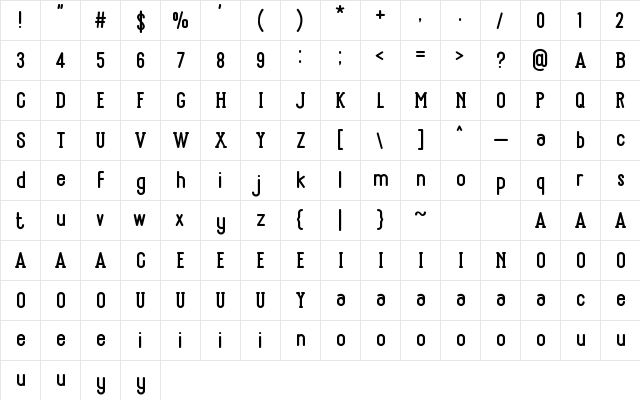
Bandonde Regular
Design Context for Bandonde Typeface
Bandonde offers clean, dependable letterforms without strong stylistic allegiance, making it a practical choice for designers who need flexibility.
Pro Tip: Pair Bandonde with a font of contrasting weight or personality to build a more expressive typographic hierarchy.